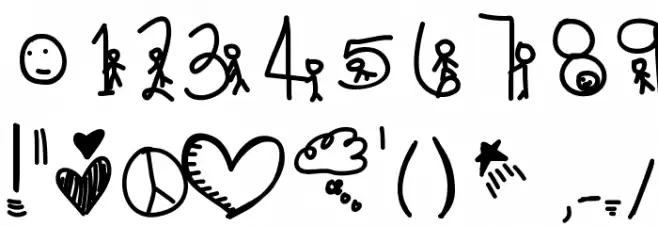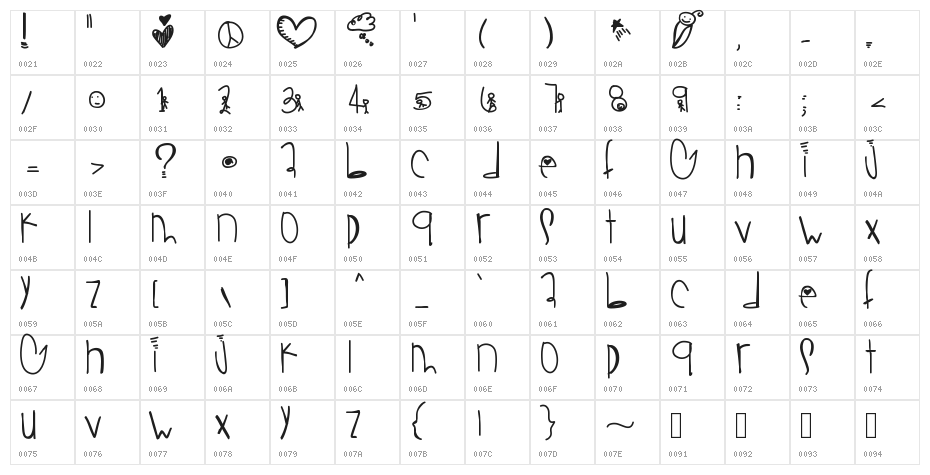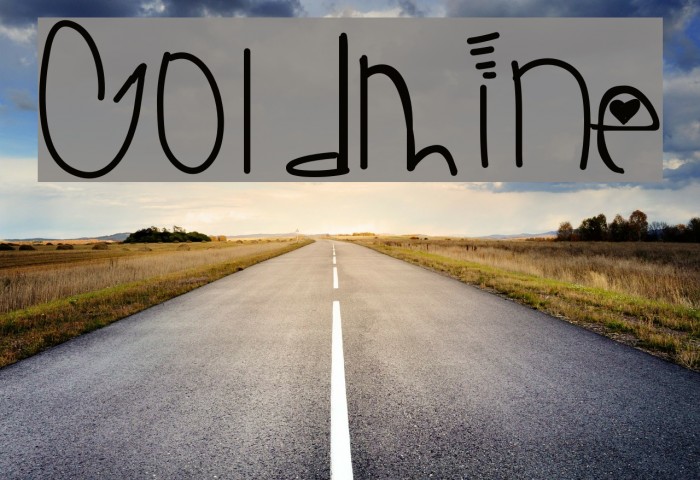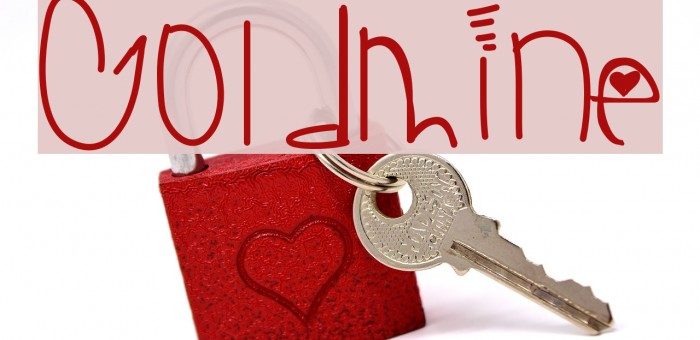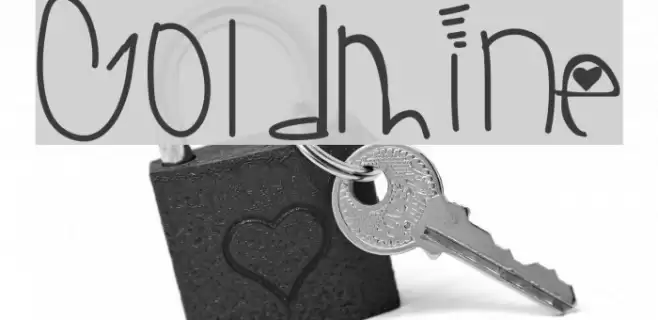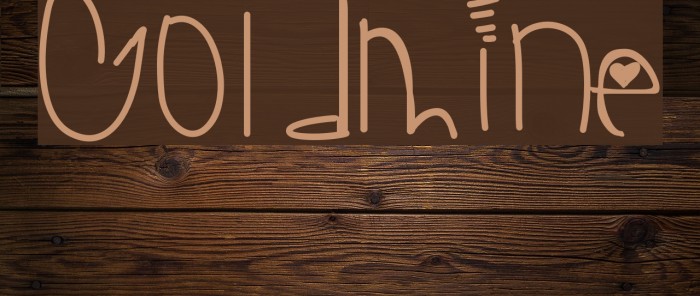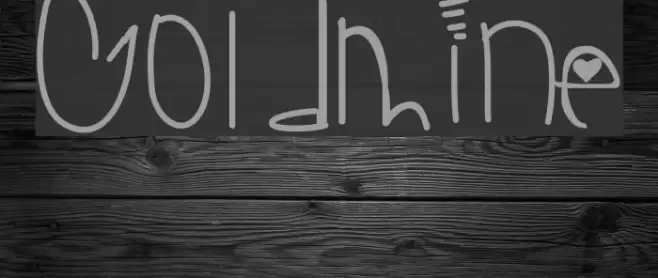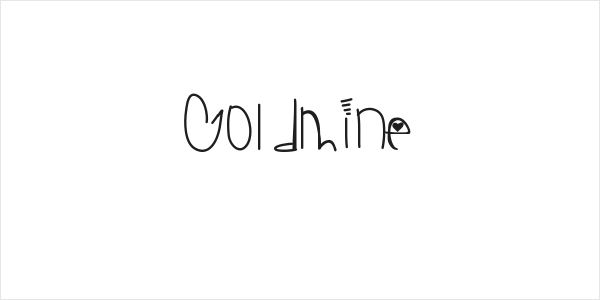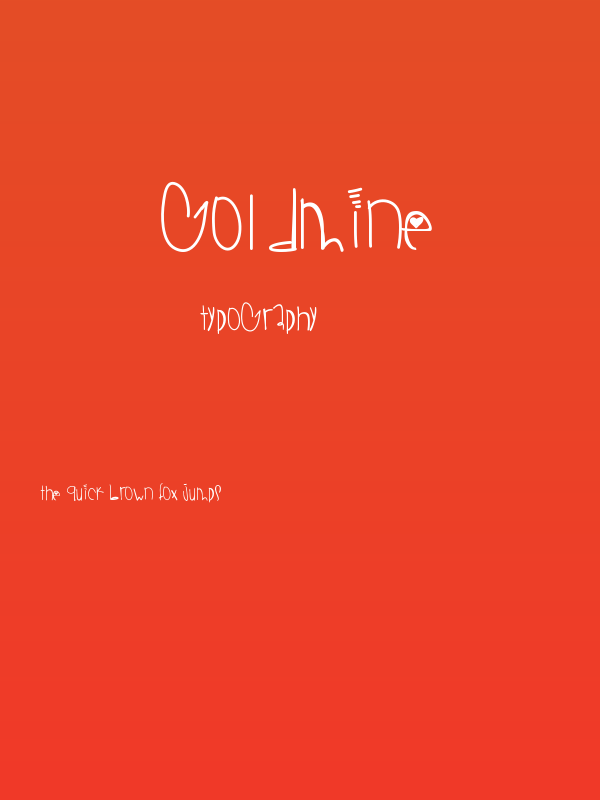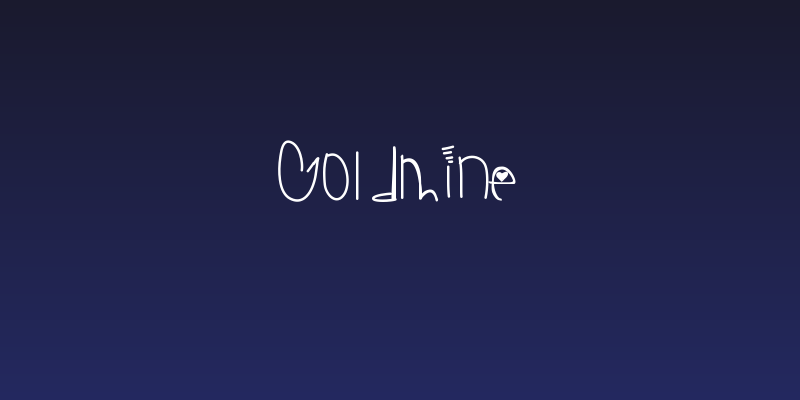
Goldmine Font
Goldmine Description
This playful and whimsical font features a hand-drawn style with unique, quirky elements. Each character is distinct, with varying line thickness and creative embellishments, such as hearts and dots. The uppercase and lowercase letters maintain a consistent style, while numbers and special characters add a fun, artistic flair. The font exudes a sense of creativity and spontaneity, making it ideal for projects that require a personal touch. Its informal and lively appearance makes it suitable for artistic and casual designs.
| Use Case | Logos, Posters, Creative projects |
| Proposed Projects | Ideal for children's books, greeting cards, playful branding, and creative posters. |